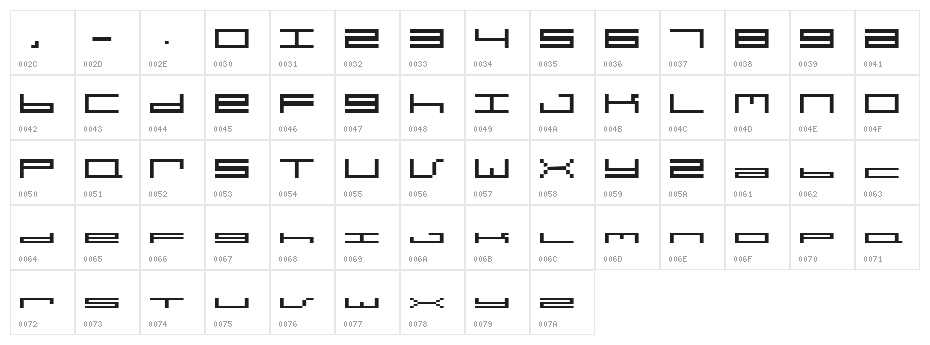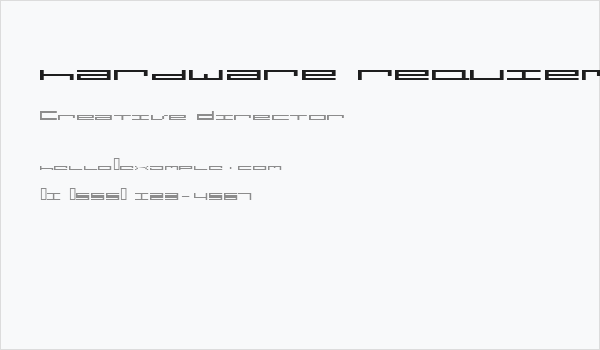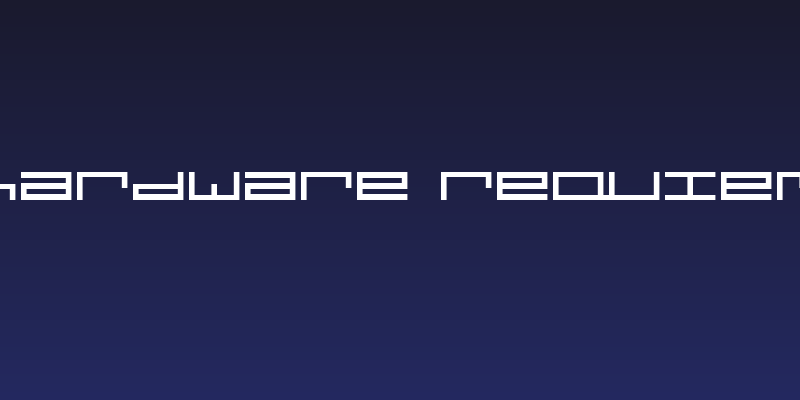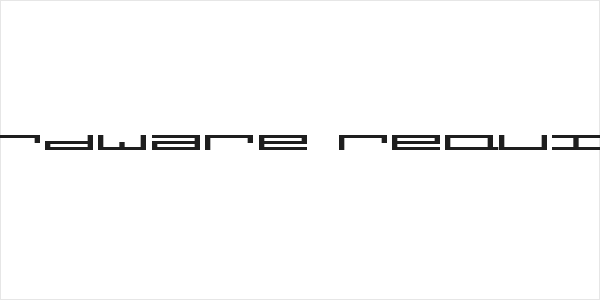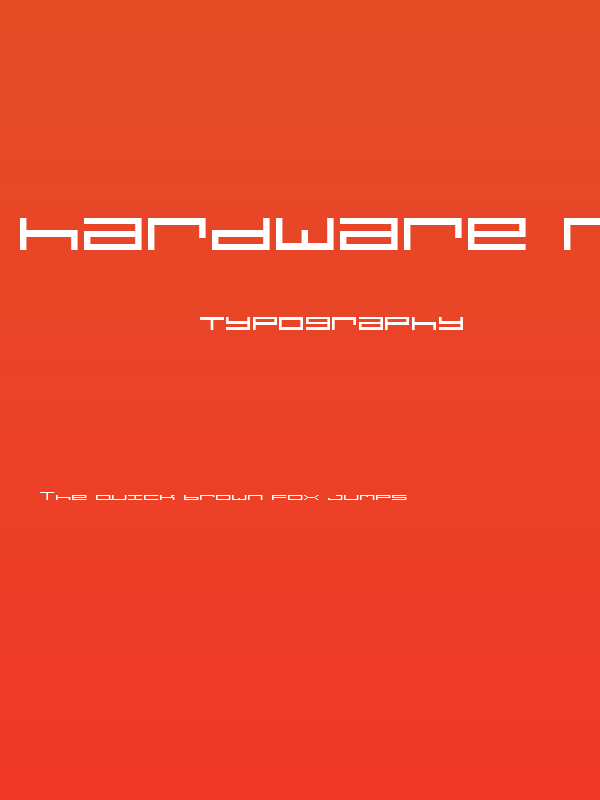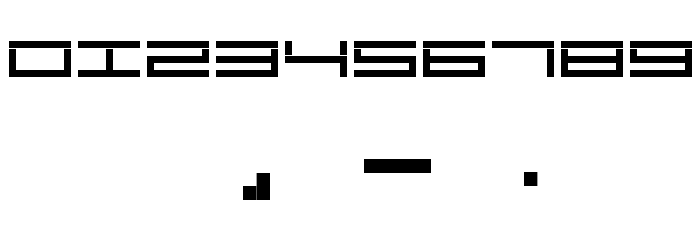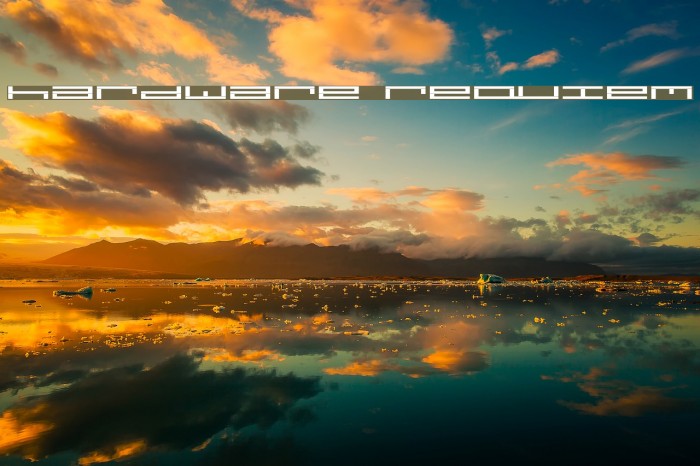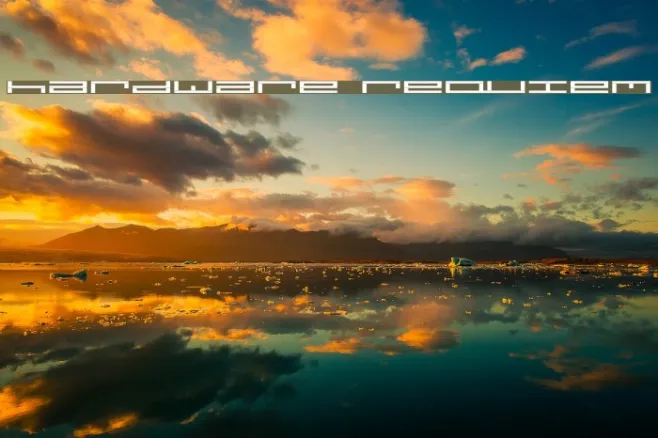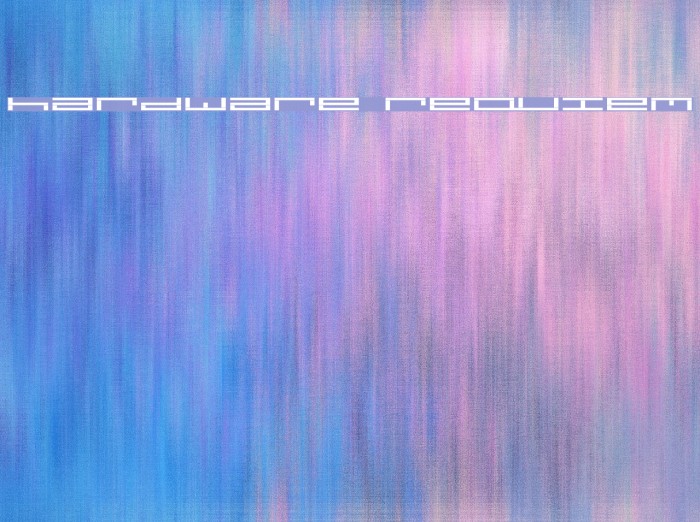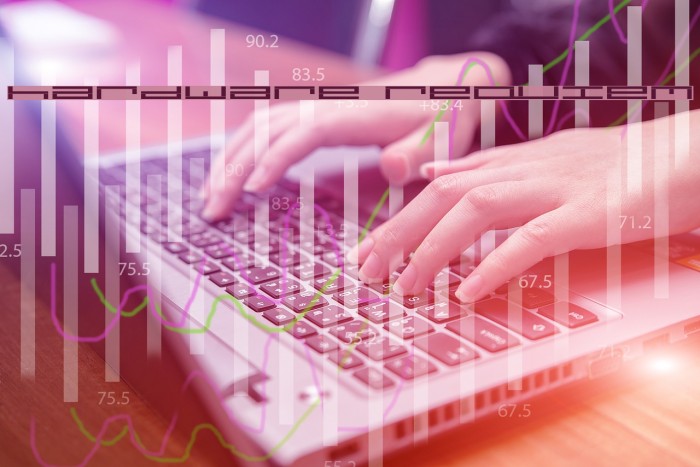
hardware requiem Font
hardware requiem Description
This font features a distinct, futuristic design with a digital, pixelated aesthetic. Each character is composed of sharp, angular lines that create a geometric and mechanical appearance. The uppercase and lowercase letters maintain a consistent style, with uniform height and width, enhancing the font's cohesive look. The numerals and special characters follow the same design principles, ensuring a seamless integration across all text elements. The font's unique style makes it ideal for projects that require a modern, tech-oriented feel.
| Use Case | Logos, Headlines, Digital interfaces |
| Proposed Projects | Ideal for tech-related branding, digital interfaces, video game graphics, and sci-fi themed projects. |